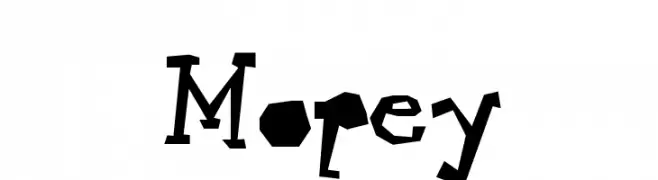
( Michael Hassler - hassified.blogspot.com/ )
A clean, geometric font with a technical and modern style.
( Qkila - Quentin Aquila - www.creativefabrica.com/designer/qkila/ )
A bold, decorative font with a vintage shadow effect, ideal for impactful designs.
( Sean Johnson - www.seanjohnson.net/fonts )
A bold, geometric font with a futuristic and digital aesthetic.
( Woodcutter - woodcutter Manero - www.woodcutter.es )
A bold, eclectic font with a ransom note, punk rock aesthetic.
A bold, playful, and irregular font with a hand-drawn, artistic style.
( mlkwsn - Malik Wisnu )
An elegant script font with flowing, interconnected letters and ornate flourishes.
( Dani Foster Herring - dani3d.com/ )
( Daniel Plant - www.fontmonster.org )
An abstract and artistic font with bold, irregular characters.
( FontasyLand - www.fontparty.com/designer.php3?dd=195 )
A whimsical font with cartoon dog illustrations representing each character.
( Gregoryfonts - www.geocities.com/soho/coffeehouse/9609/fonts/fonts.html )
A playful, jagged font with a hand-cut, artistic style.